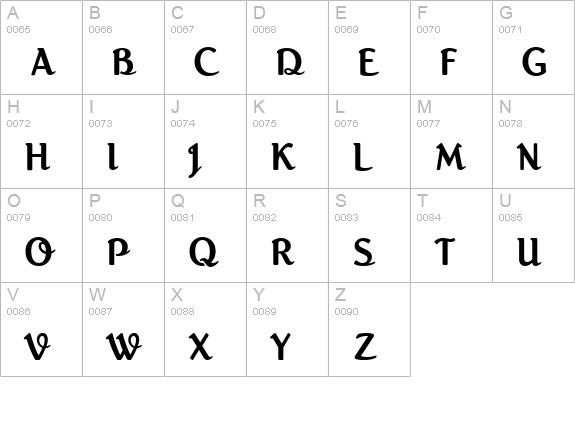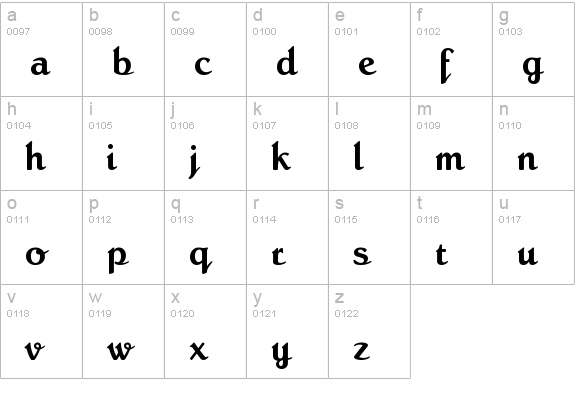
Rochefort-Regular Font Details
Rochefort-Regular is the standard, neutral variant in the Rochefort typeface family \xE2\x80\x94 well suited to general body text, paragraphs, and standard typographic work.
Rochefort-Regular is a versatile and elegant serif font that exudes sophistication and style. Its timeless design makes it suitable for a wide range of projects, from branding to editorial design. With its classic yet modern aesthetic, Rochefort-Regular is sure to make a lasting impression. The clean lines and balanced proportions of Rochefort-Regular make it a go-to choice for designers looking to add a touch of refinement to their work. Whether used for body text or headlines, this font maintains excellent readability and legibility, ensuring that your message is conveyed effectively. Best of all, Rochefort-Regular is available for free download at FontsMarket.com. This means that you can easily access this high-quality font without any cost, making it a valuable addition to your font library. Don't miss out on the opportunity to enhance your designs with the timeless beauty of Rochefort-Regular.